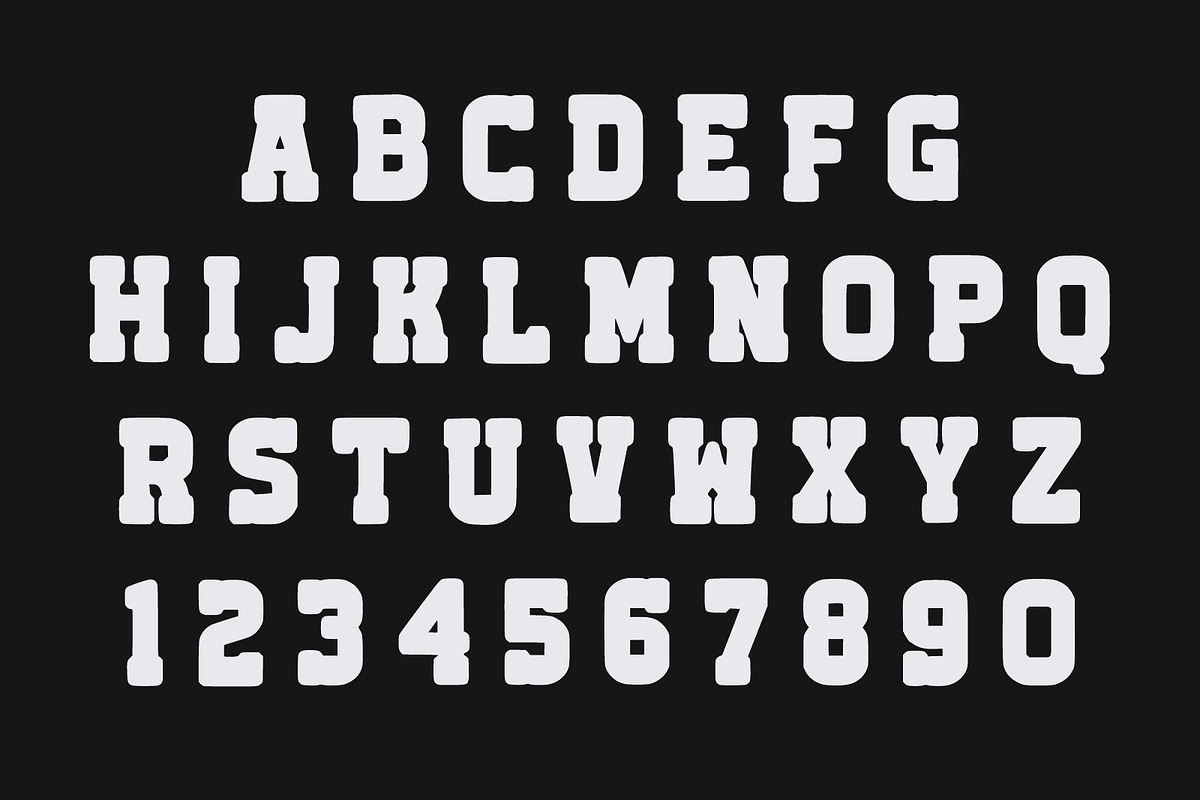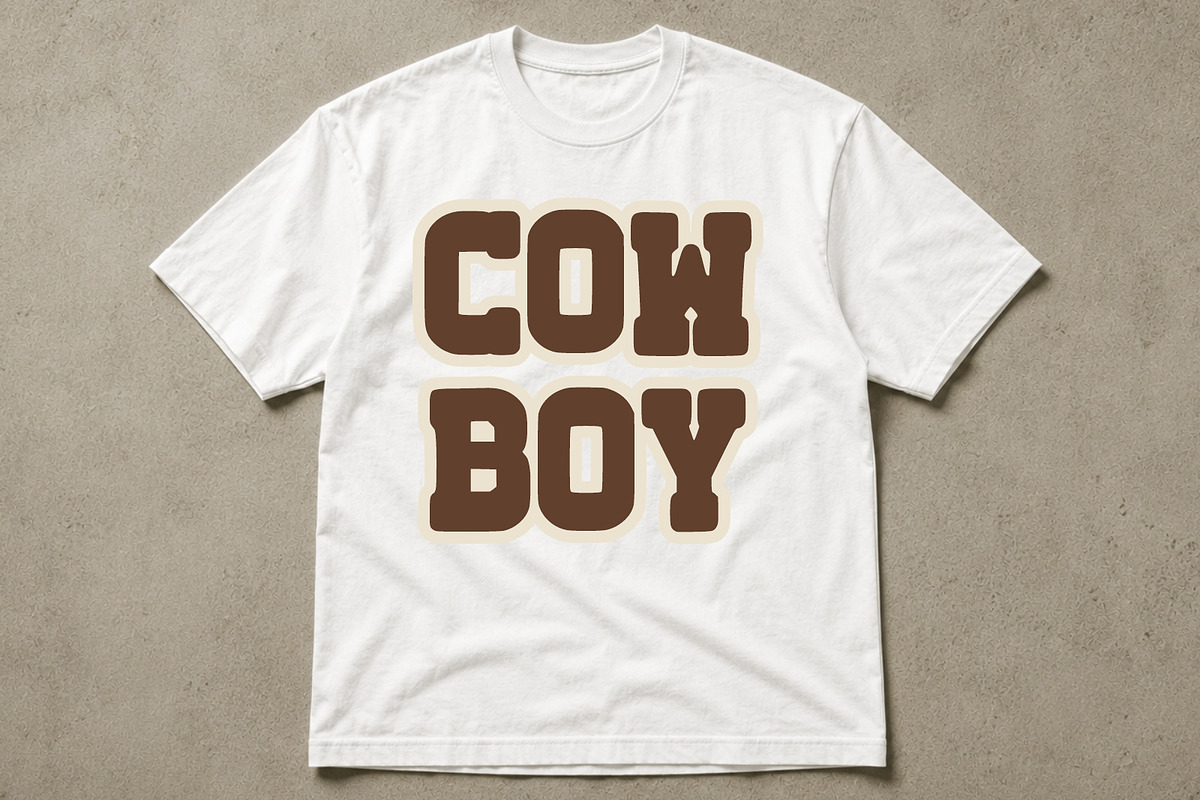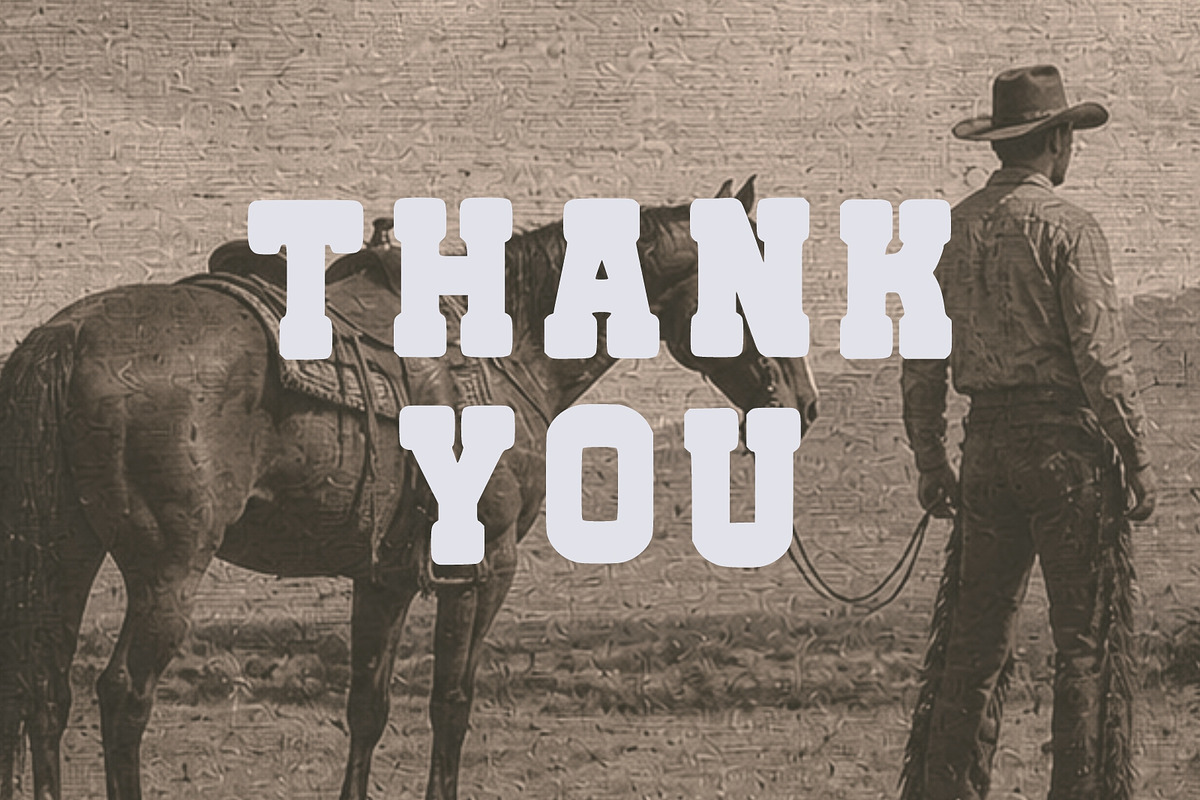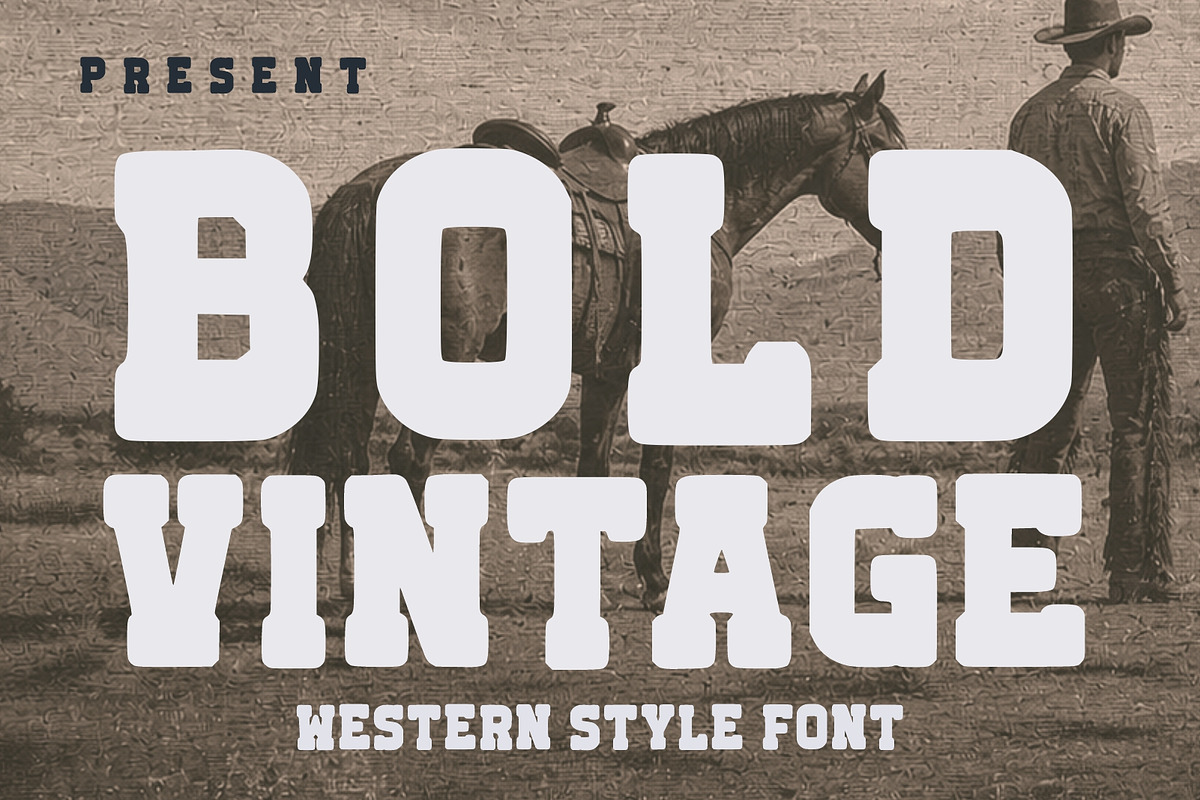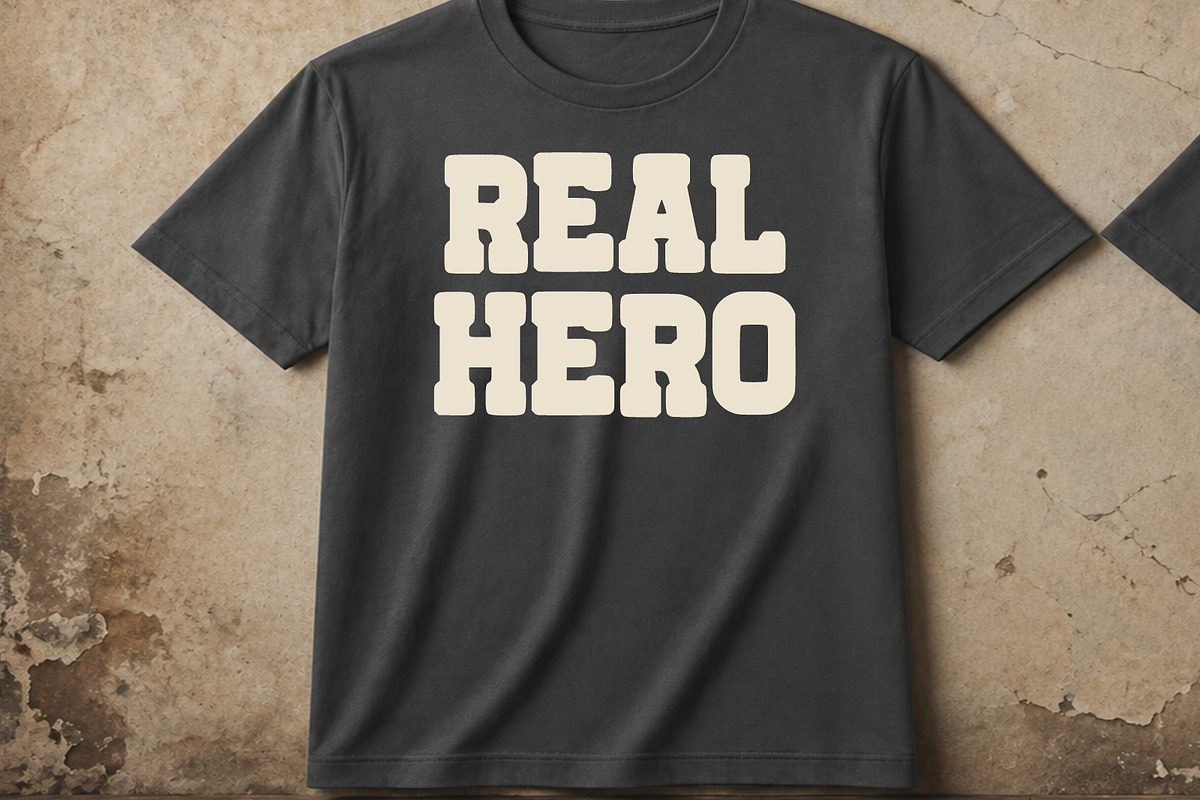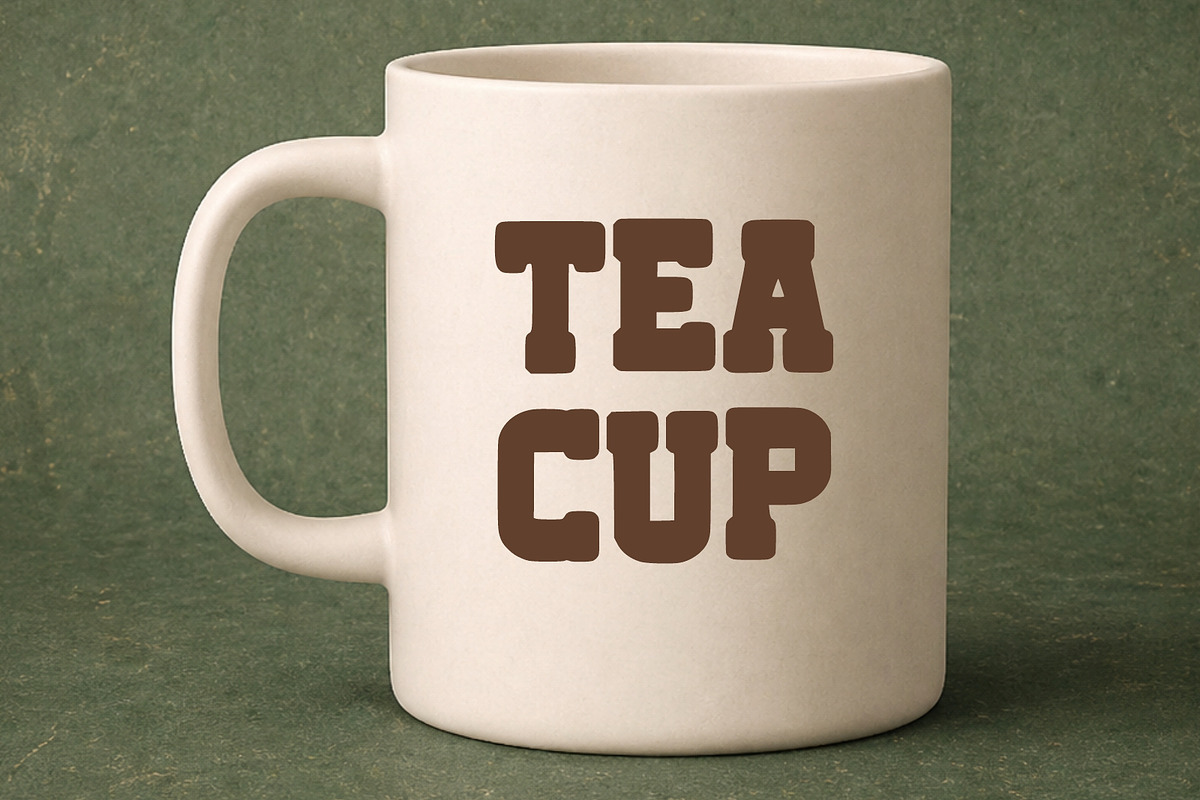
Bold Vintage
Bold Vintage Western Style Font is a strong and eye-catching display typeface inspired by classic western signage and retro cowboy aesthetics. Featuring thick letterforms, rugged edges, and a timeless vintage feel, this font is perfect for posters, branding, logos, packaging, t-shirt designs, and rustic-themed projects. Its bold presence ensures excellent readability while delivering an authentic old-west character to any design. Ideal for designers looking to create a powerful and nostalgic western vibe.